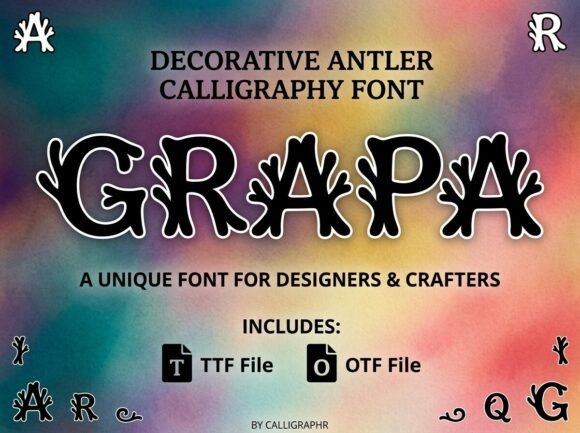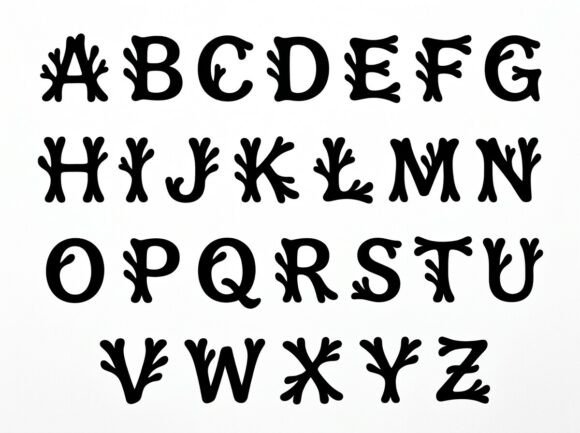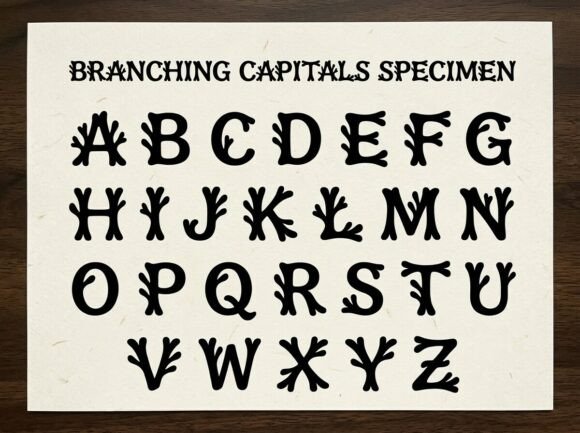
Introducing Grapa Font: Elevate Your Creative Projects with a Unique Display Font
Are you tired of using the same old fonts for your creative projects? Do you want to make a statement and stand out from the crowd? Look no further than Grapa Font, a decorative display font designed to be the centerpiece of any layout. With its distinct artistic elements and strong character, Grapa Font is perfect for creators who want to break away from the ordinary and add a touch of sophistication to their work.
What Makes Grapa Font Special?
Grapa Font is a one-of-a-kind display typeface that is sure to turn heads. Its bold and artistic design makes it perfect for a variety of applications, from bold headlines to creative branding and packaging. The font’s strong character and unique elements give it a high-end, professional aesthetic that is sure to elevate your creative projects.
Key Features of Grapa Font
- Distinct Artistic Elements: Grapa Font features distinct artistic elements that set it apart from other fonts. Its unique design makes it perfect for creators who want to add a touch of personality to their work.
- Strong Character: The font’s strong character makes it perfect for bold headlines and titles. It’s sure to grab attention and make a statement.
- High-End Aesthetic: Grapa Font delivers a high-end, professional aesthetic without compromising on personality. It’s perfect for creators who want to add a touch of sophistication to their work.
Technical Note:
⚠️ Important Technical Note: Grapa Font is an All-Caps display typeface. By design, it does not contain lowercase letters, making it a powerful tool for logos, titles, and decorative initials. This unique feature makes it perfect for creating bold and eye-catching headlines, but it’s not suitable for body text or long-form content.
Perfect for Designers and Crafters:
Grapa Font is perfect for designers and crafters who want to add a touch of personality to their work. Whether you’re creating a logo, branding materials, or packaging, Grapa Font is sure to elevate your creative projects. Its unique design and high-end aesthetic make it a versatile font that can be used in a variety of applications.
Use Cases for Grapa Font:
- Logos and Branding: Grapa Font is perfect for creating unique and memorable logos and branding materials.
- Headlines and Titles: The font’s bold and artistic design makes it perfect for creating eye-catching headlines and titles.
- Packaging and Product Design: Grapa Font can be used to add a touch of sophistication to packaging and product design.
- Advertising and Marketing: The font’s high-end aesthetic makes it perfect for advertising and marketing materials.
Conclusion:
In conclusion, Grapa Font is a unique and versatile display font that is perfect for creators who want to add a touch of personality to their work. Its distinct artistic elements, strong character, and high-end aesthetic make it a powerful tool for elevating creative projects. Whether you’re a designer, crafter, or entrepreneur, Grapa Font is sure to become a valuable addition to your font library.